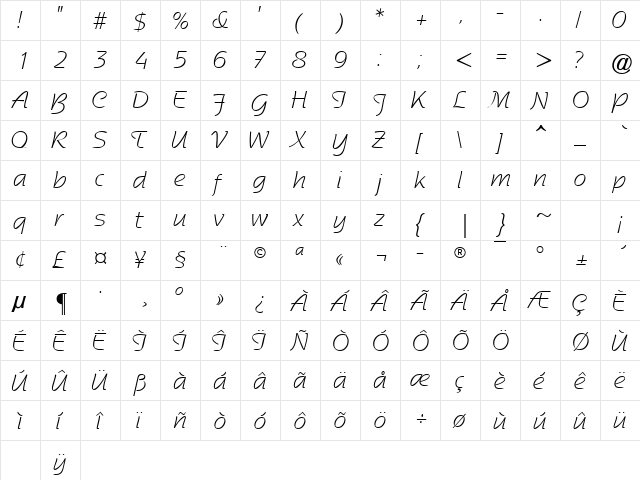
SentimentalScriptLightSSK Regular
Design Context for SentimentalScriptLightSSK Typeface
SentimentalScriptLightSSK brings a calligraphic fluidity to the page — its connecting strokes and expressive curves give it an unmistakably human quality. The delicate stroke weight brings airiness and refinement to layouts.
Font Pairing: Combine SentimentalScriptLightSSK with a simple geometric sans for maximum contrast — the tension between flowing curves and clean structure is a classic typographic pairing.
Pro Tip: Use SentimentalScriptLightSSK for short runs of text — names, titles, or taglines. Extended body copy in script faces tires the eye quickly.